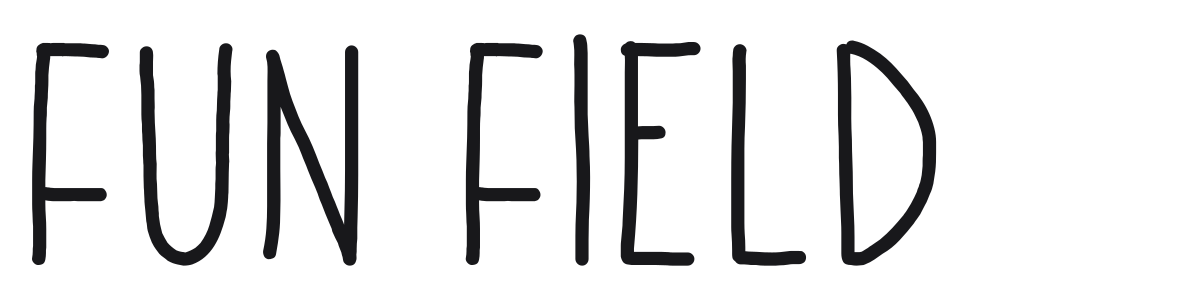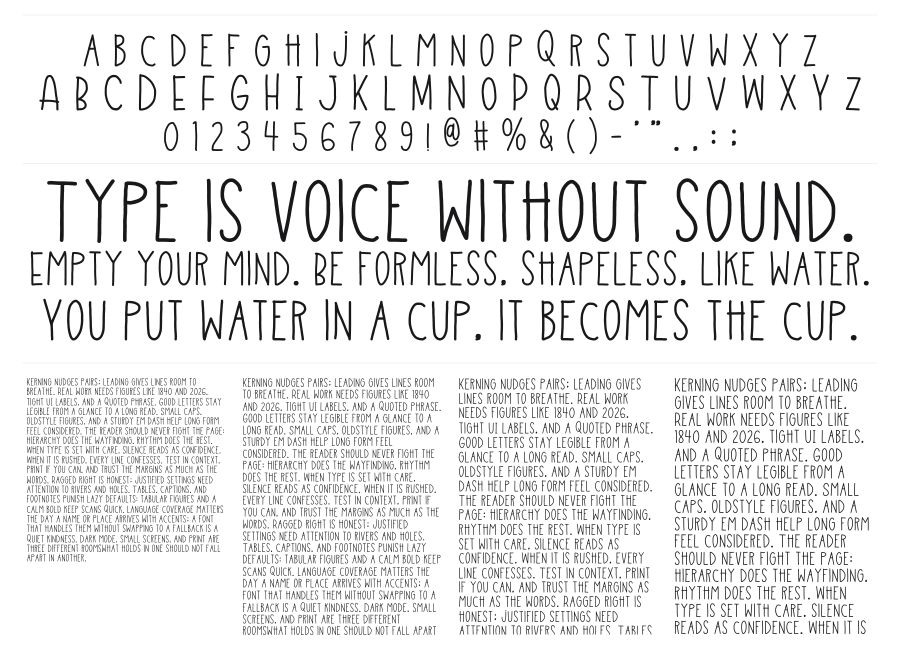
Fun Field
Fun Field is a hand-drawn condensed sans with a loose, doodled quality that makes it feel genuinely casual rather than just styled. The slightly uneven strokes and tall narrow proportions give it a lot of charm at large sizes. Good for branding projects that need warmth and personality over polish.